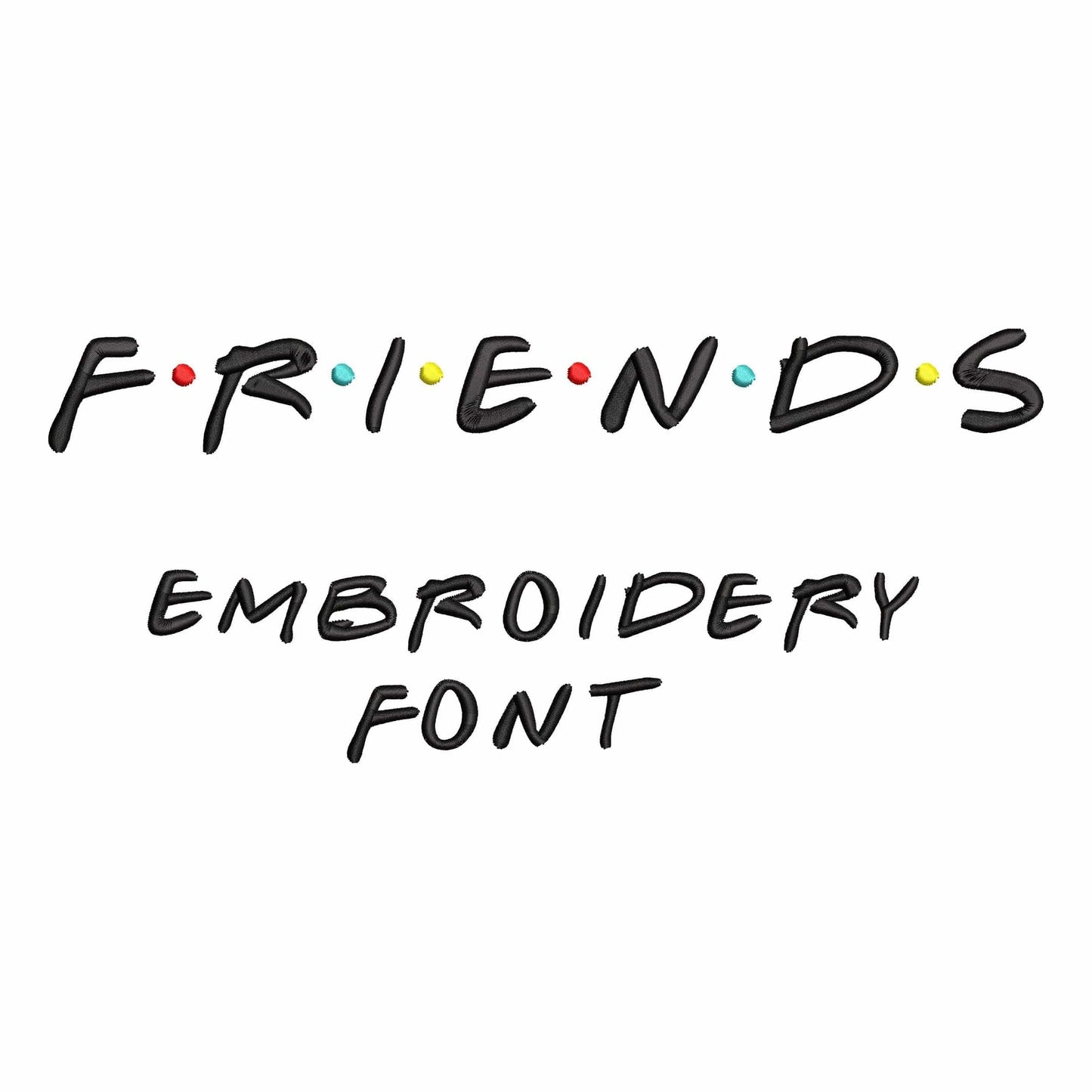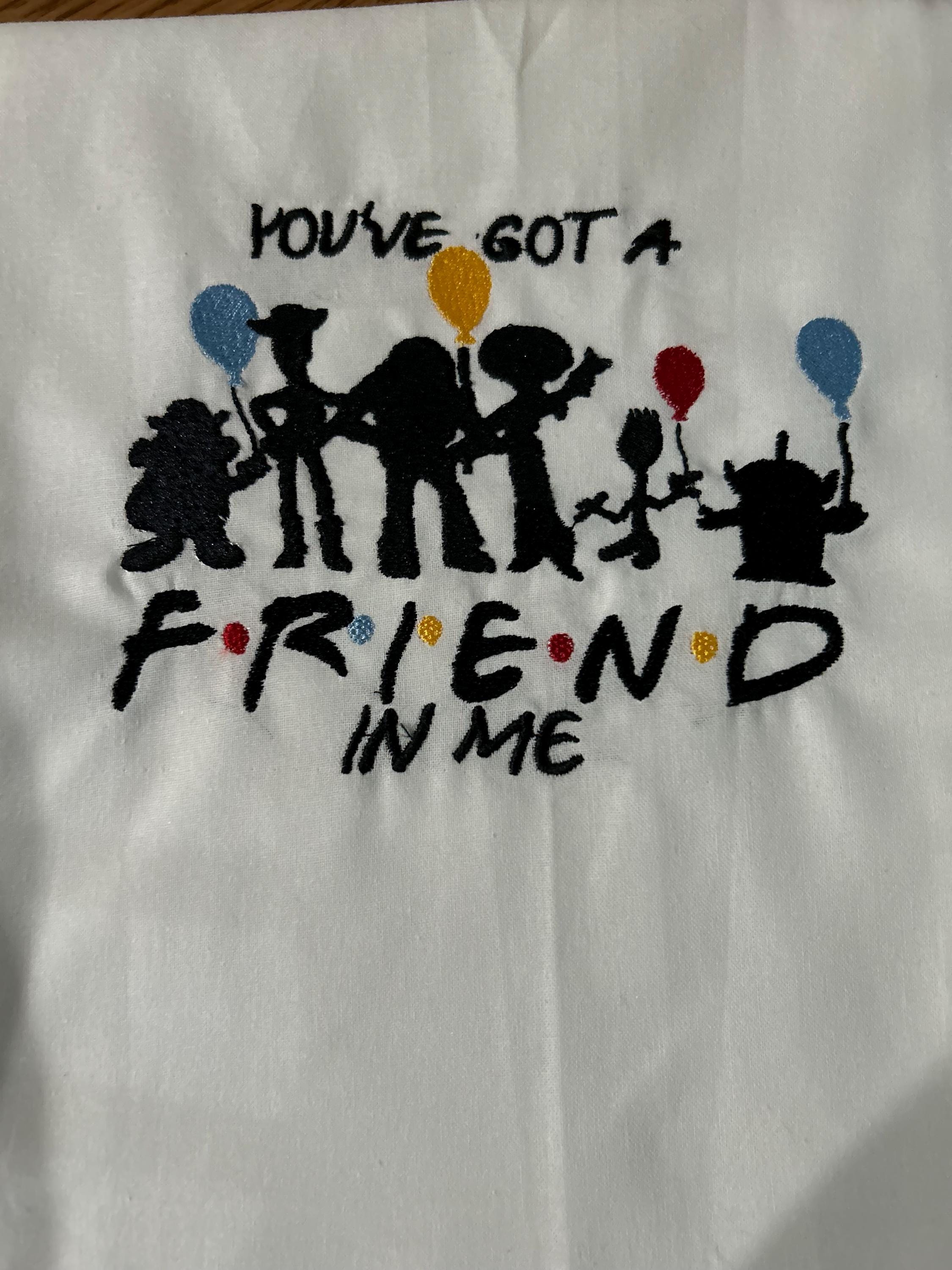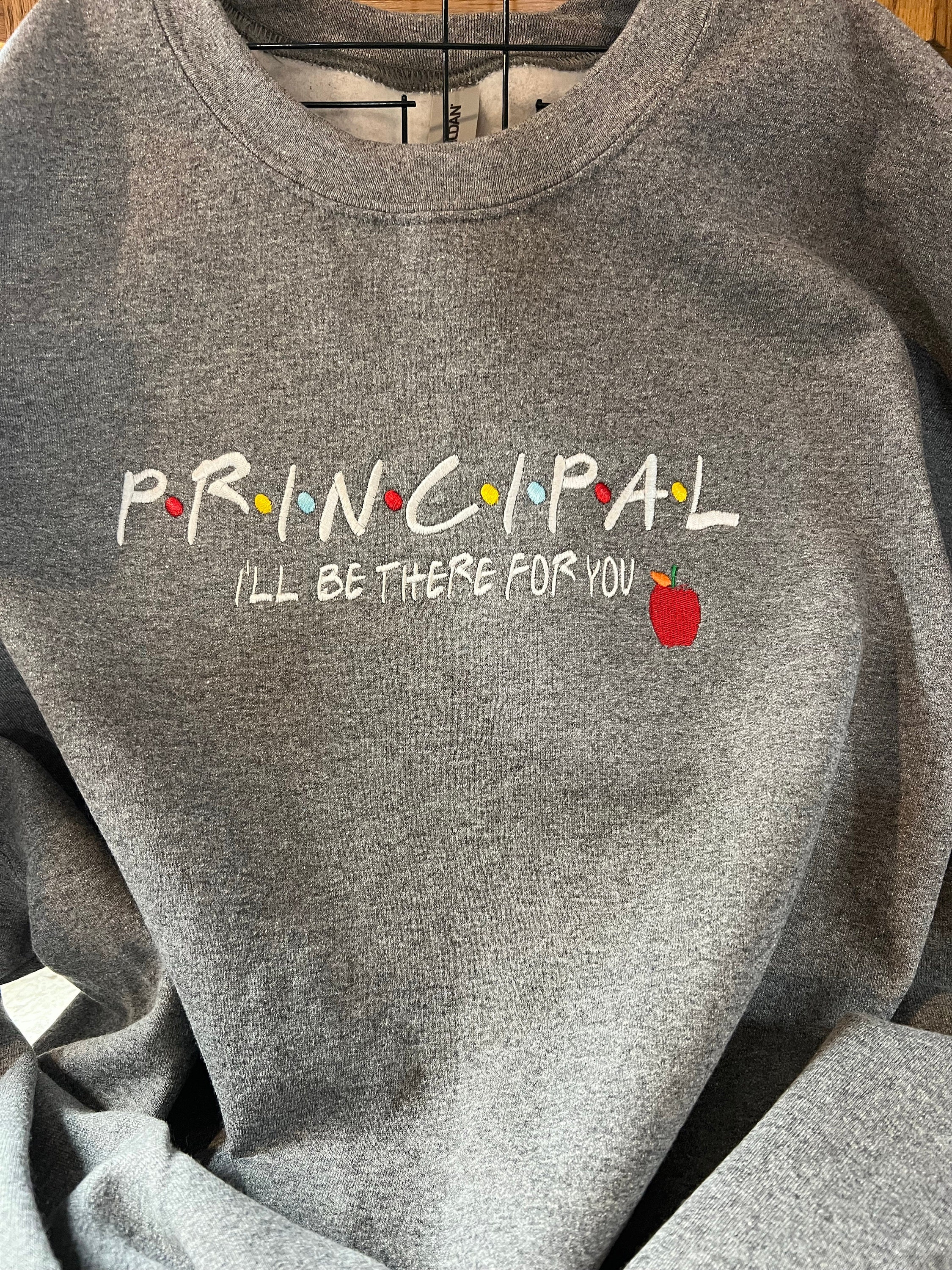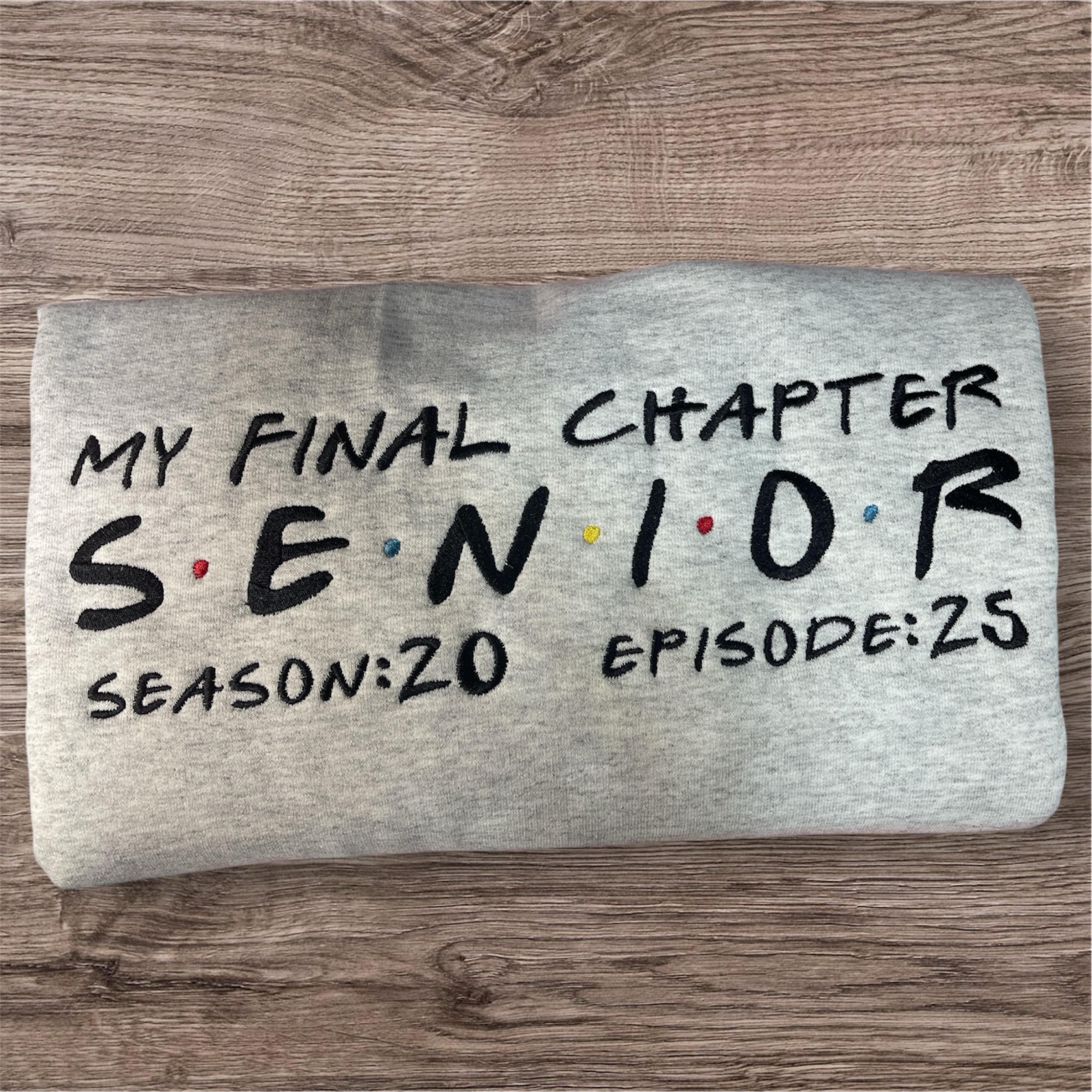
Friends Mini - Embroidery font
• Included: A-Z (uppercase), a-z(lowercase), 0-9 (numbers)
This mini machine embroidery font works well for small names, labels, baby items, towels, gifts, and playful custom embroidery.